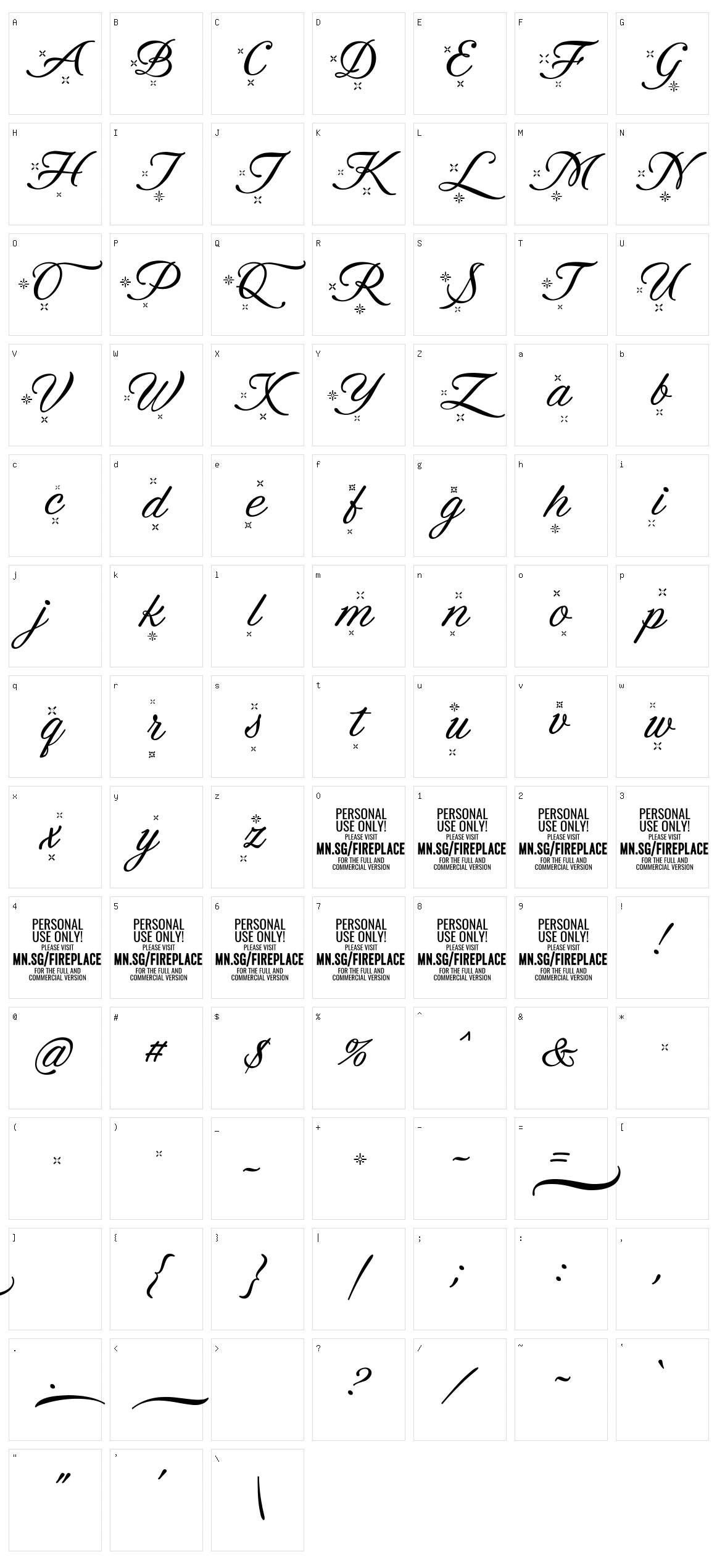
Fireplace is a decorative logotype font.
Drawn and created by Mans Greback in 2020, this script typeface has a cozy and warm holiday vibe, bringing the thoughts to a Christmas Eve and winter season.
It is a vintage sport lettering that has velocity, style and class.
Use + * ¤ à to create snowflakes, sparkles and stars.
Use [ ] < > after any word to create a swash.
Example: Snow]
For a longer swash, use several characters: Decorative>>>>
Each style contains alternates and ligatures, giving the calligraphy true customized possibilities.
The font has extensive lingual support, covering all European Latin scripts.
It contains all characters you'll ever need, including all punctuation and numbers.